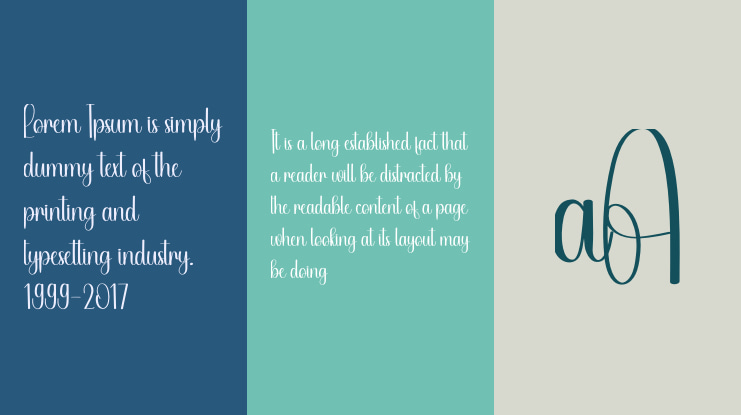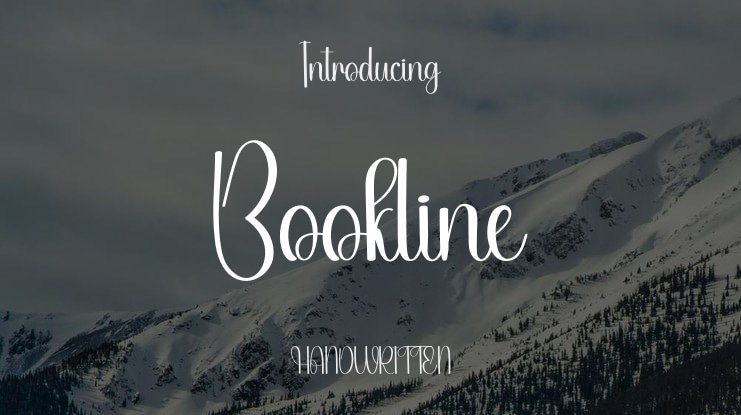
Bookline Font
Our trendy letter styles are ideal for wall displays, wedding invitations, social media posts, logos, advertisements, product packaging, designs, labels, photography, watermarks, invitations, stationery, and any project that demands elegant handwriting.